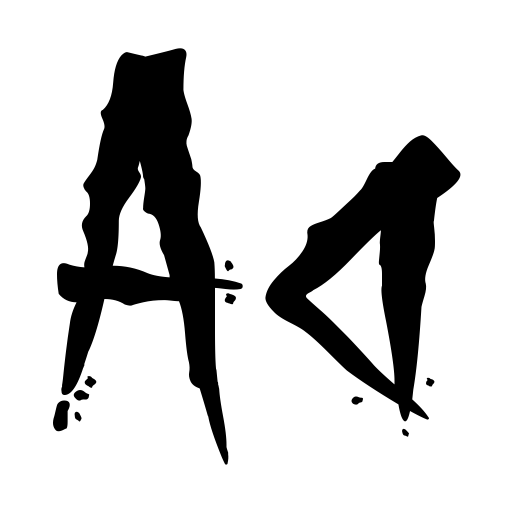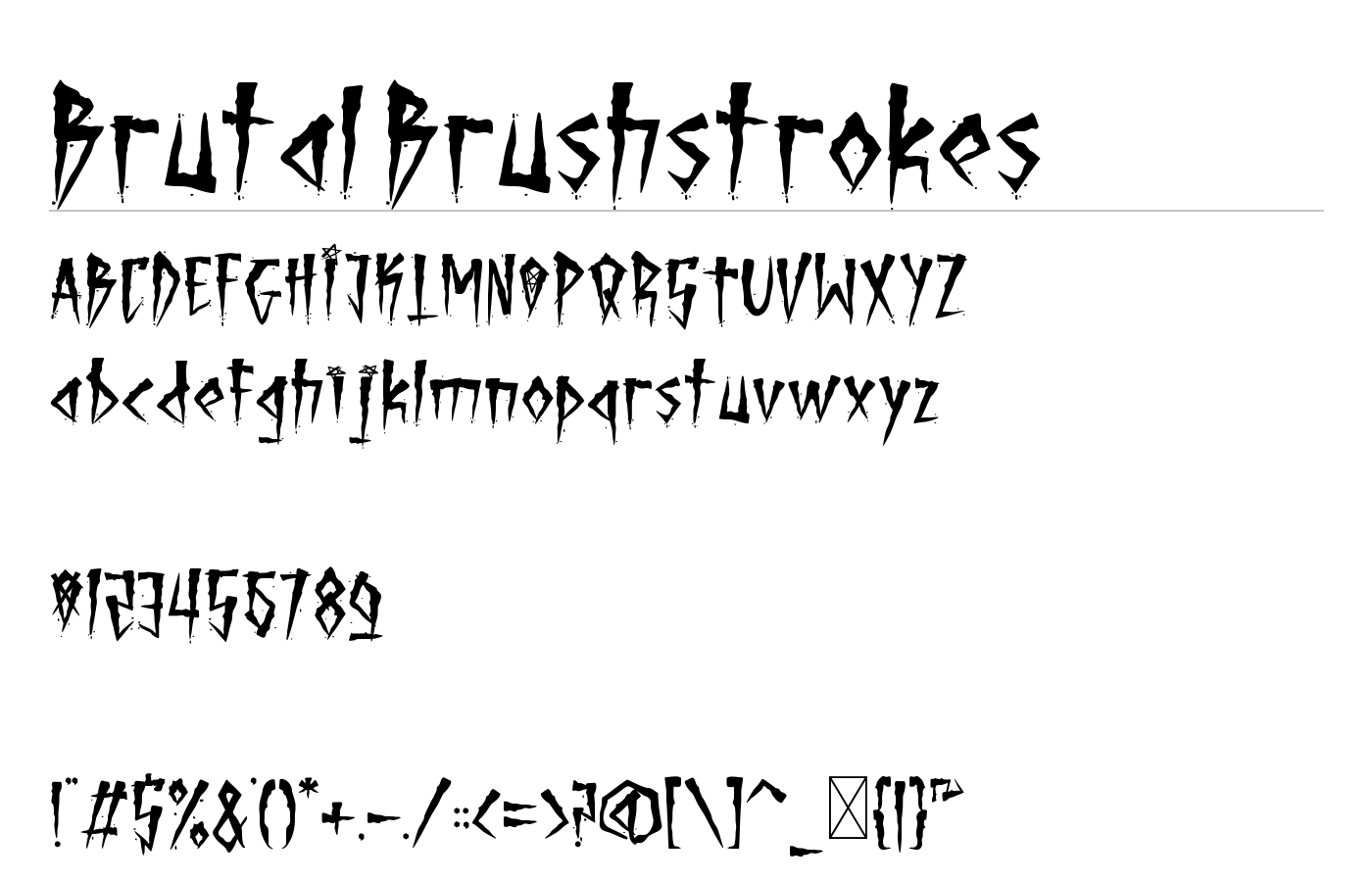
Brutal Brushstrokes is a bold, hand-drawn brush script font with sharp, jagged edges and high contrast strokes that give it an intense, edgy character. Its irregular letterforms and dripping ink effect create a raw, expressive vibe perfect for striking headlines, posters, and creative branding where a gritty, rebellious mood is desired. This font stands out in designs that want to convey energy and an untamed, artistic spirit.
Brutal Brushstrokes Font
About Brutal Brushstrokes Font